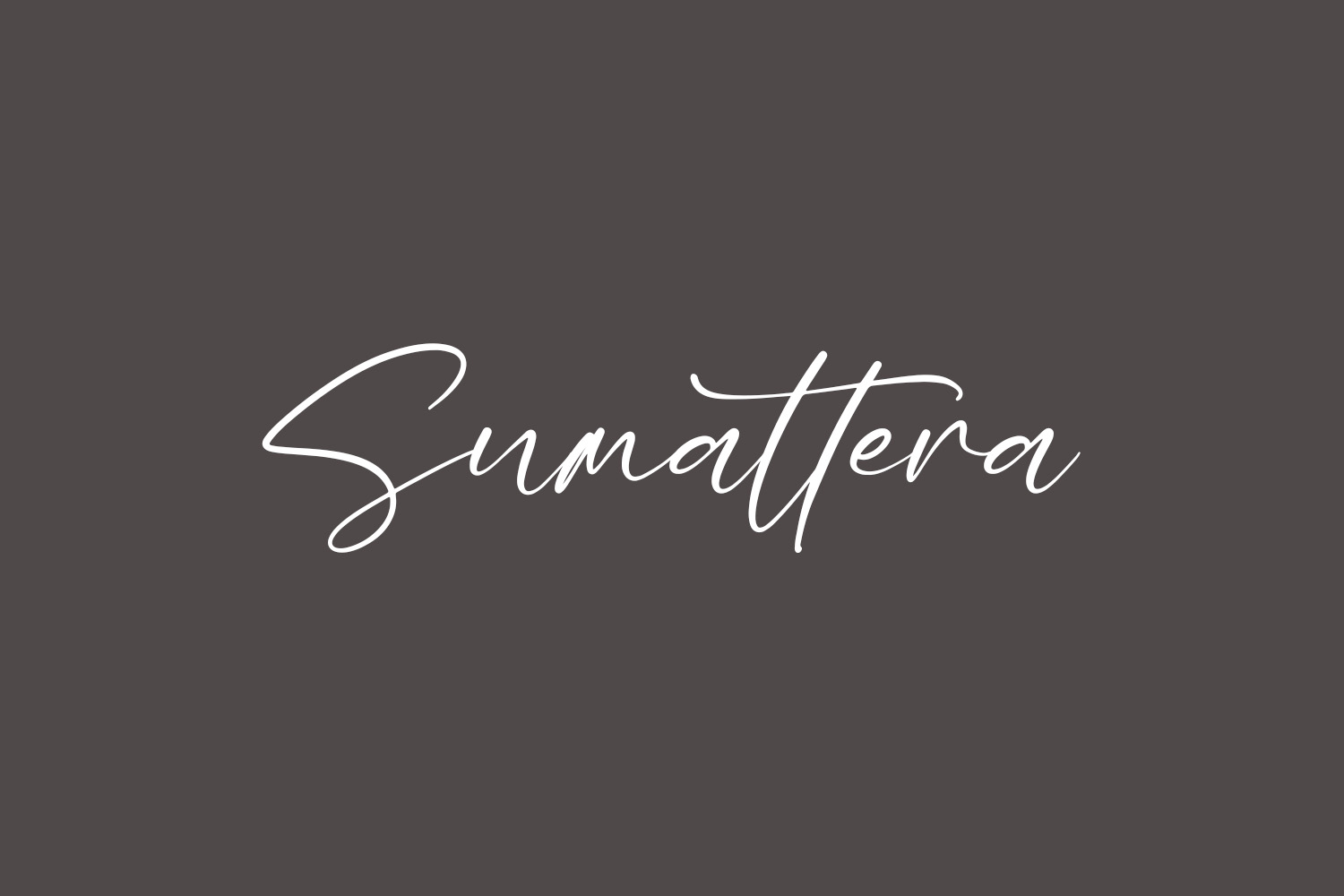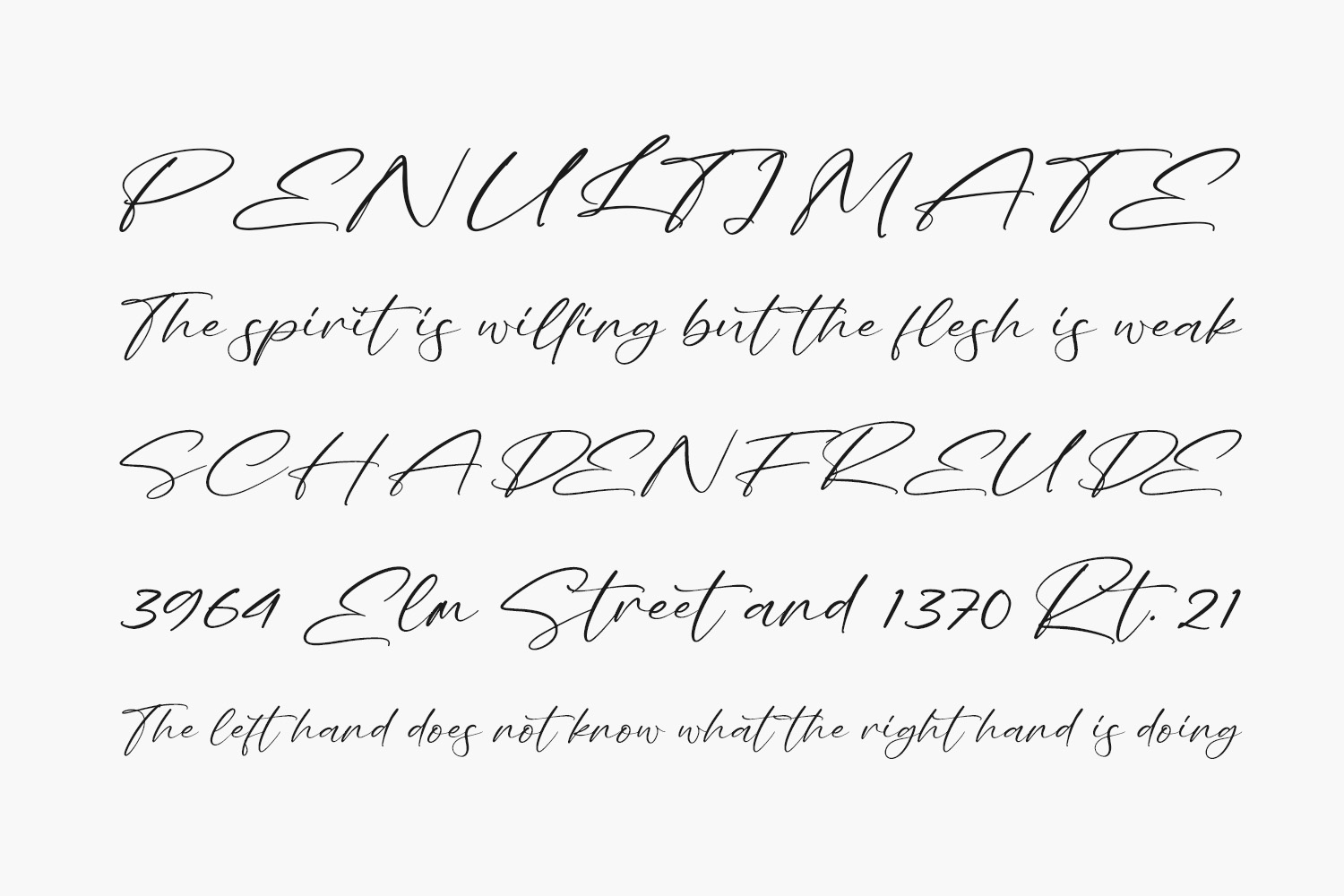
Introducing Sumattera Free Font, a slender and gracefully scripted font. This delicate typeface is the optimal choice for crafting attention-grabbing logos, building distinctive branding, and designing impactful quotes. Elevate your visual identity with the finesse of Sumattera. Sumattera Free Font was designed by Letterena Studios and is free for personal use only. Please purchase the full version for commercial use.